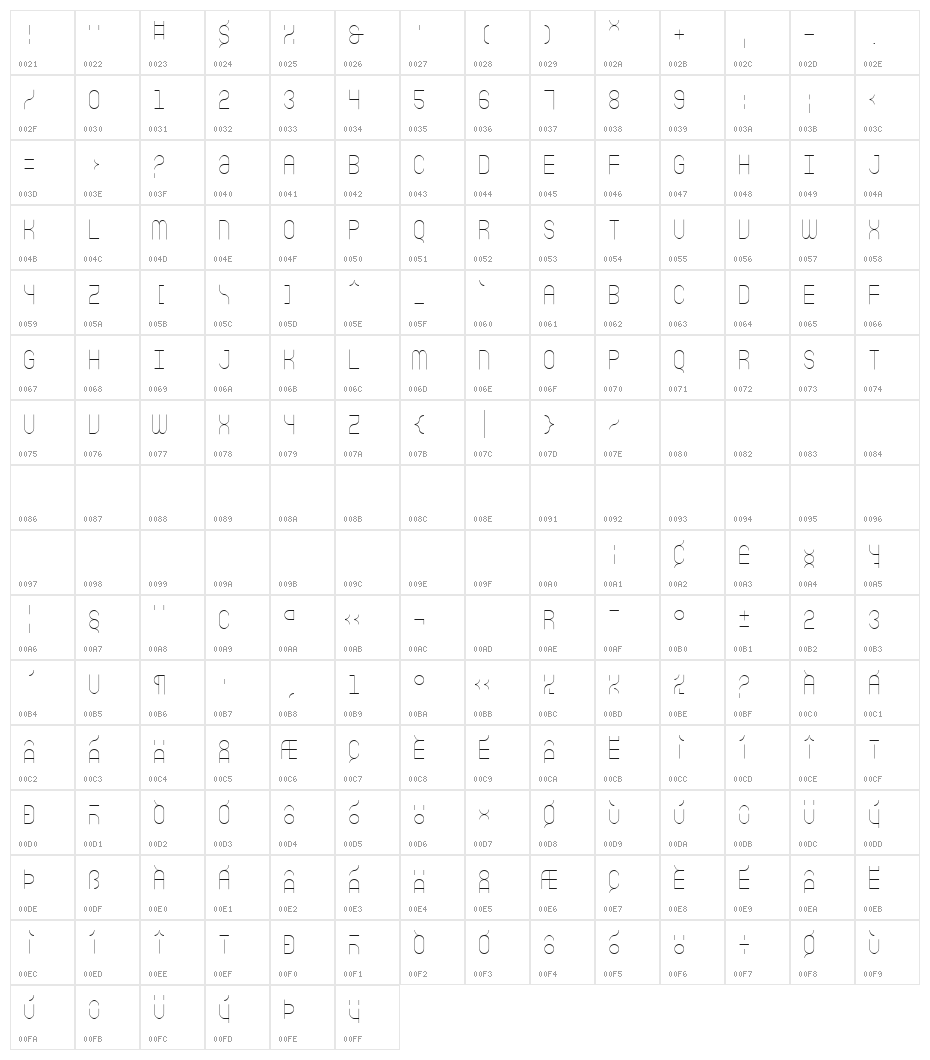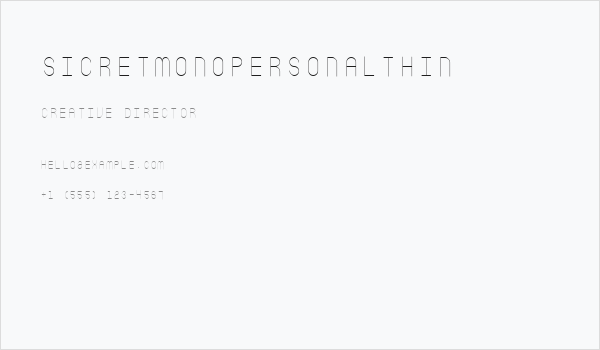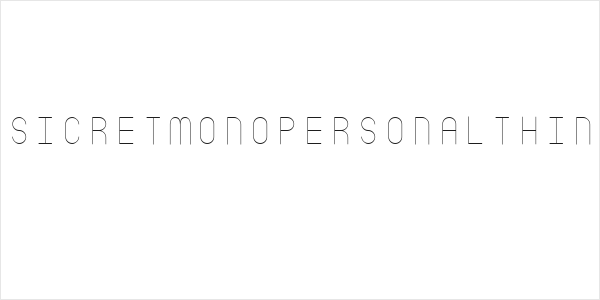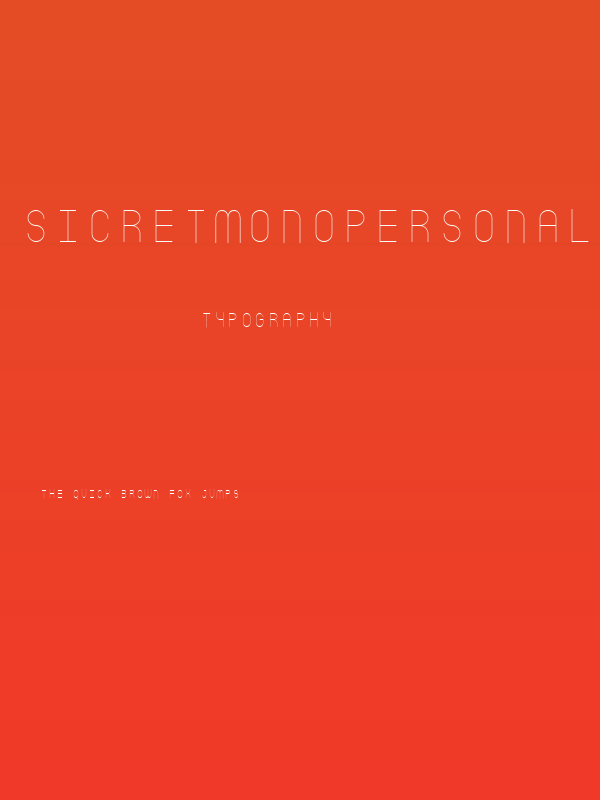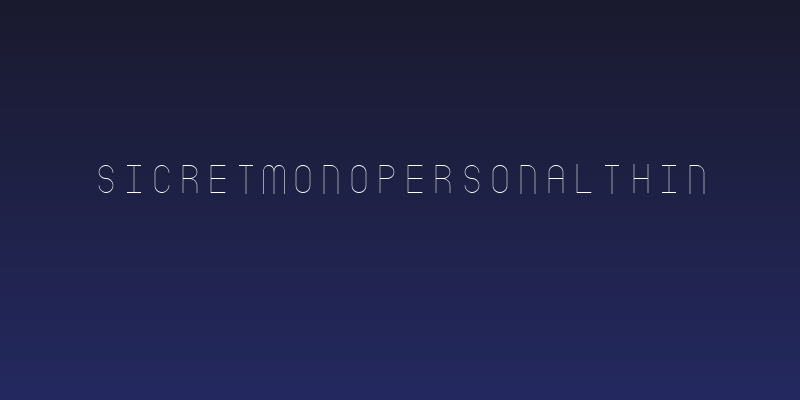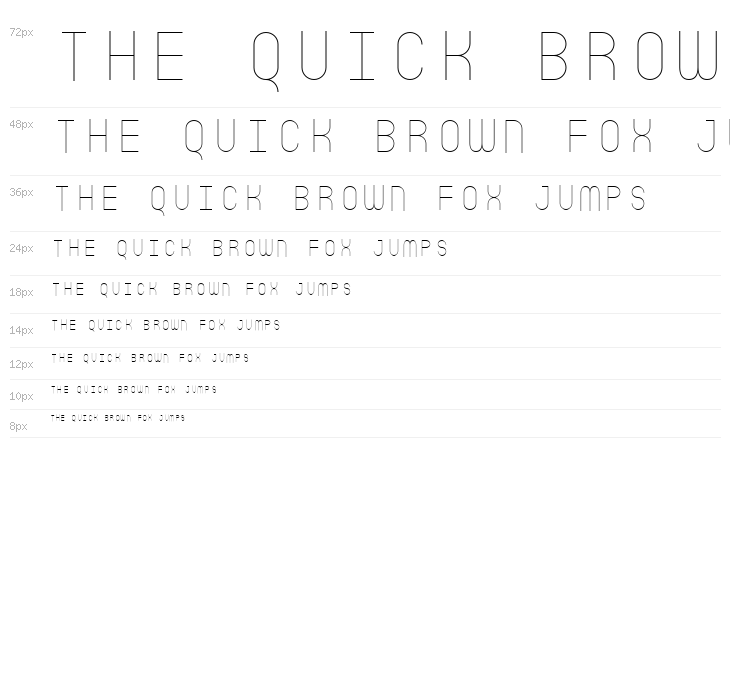
SicretMonoPERSONALThin Font
SicretMonoPERSONALThin Description
This font features a minimalist and geometric design, characterized by its thin, monolinear strokes. Each character is crafted with precision, maintaining a consistent line weight throughout. The uppercase and lowercase letters exhibit a modern and clean aesthetic, with rounded edges and a uniform height. The numerals are equally sleek, complementing the overall style with their streamlined appearance. Special characters are thoughtfully designed to match the font's contemporary feel, making it versatile for various applications. Its simplicity and clarity make it suitable for projects that require a modern and unobtrusive typeface.
| Proposed Projects | Ideal for tech branding, minimalist posters, modern web design, and clean editorial layouts. |